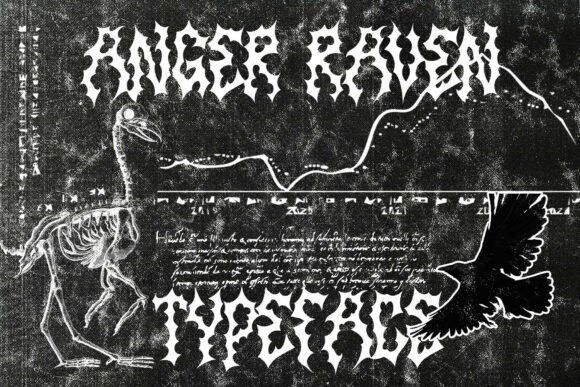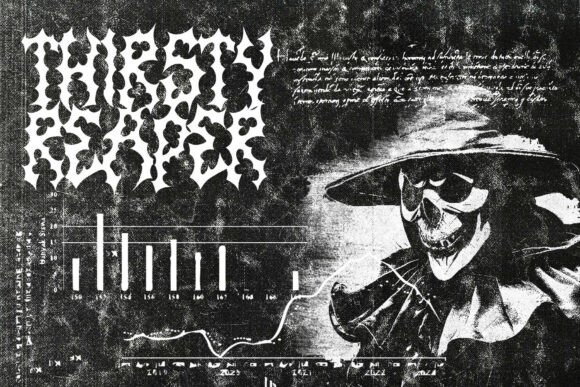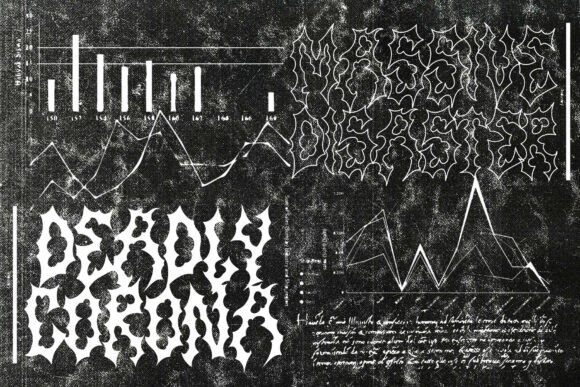
Introduction to Anger Raven Font
Anger Raven is an experimental display font that breaks every rule — a chaotic clash of sharp edges, distorted shapes, and brutal rhythm.
Inspired by the raw visual aggression of underground noise scenes, street collage, and extreme metal logos, this typeface is unreadable by design and unforgettable in execution Each character in Anger Raven drips with anti-design energy, combining grotesque textures and mutated letterforms to create something purely visceral.